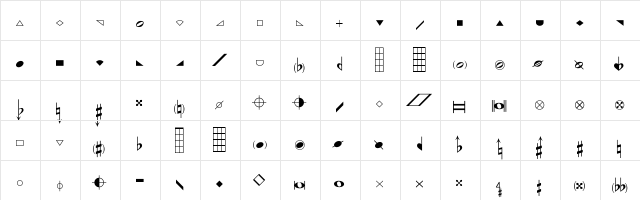
Maestro Percussion Regular
Design Context for Maestro Percussion Typeface
Maestro Percussion takes a measured approach to typography — its balanced proportions and neutral character make it a reliable workhorse for both digital and print work.